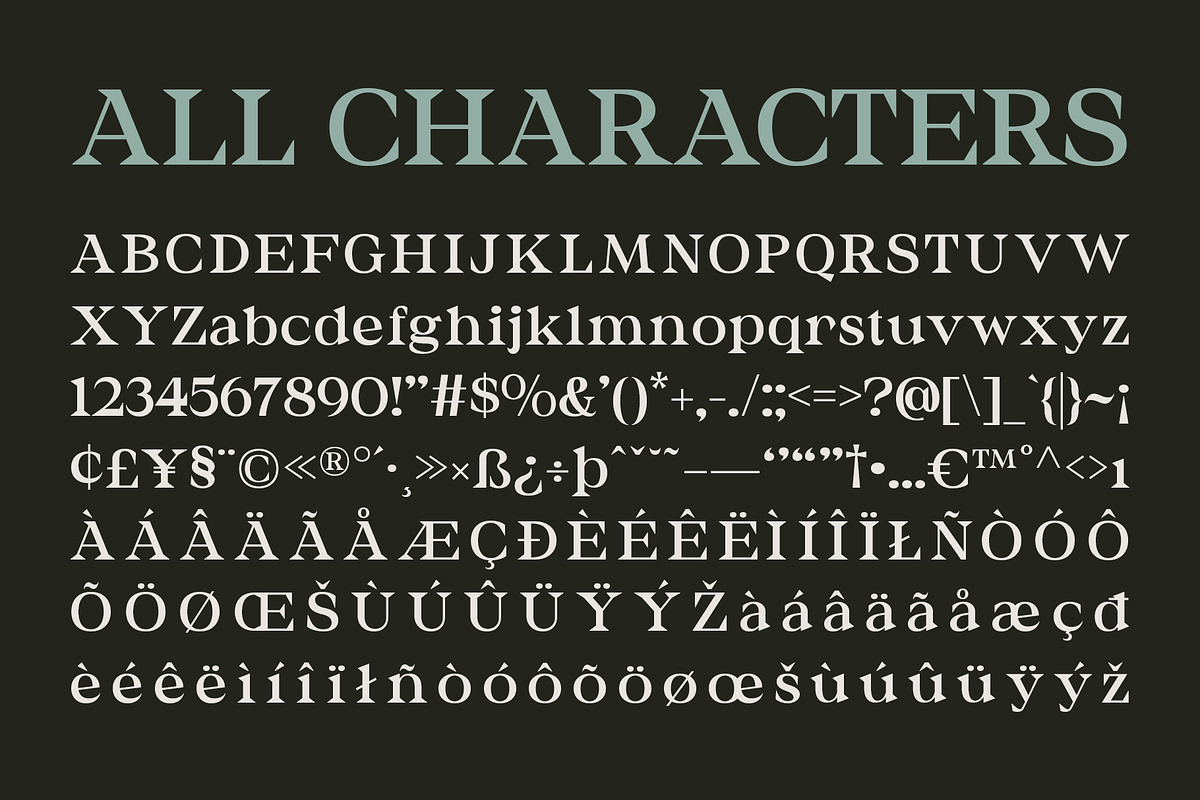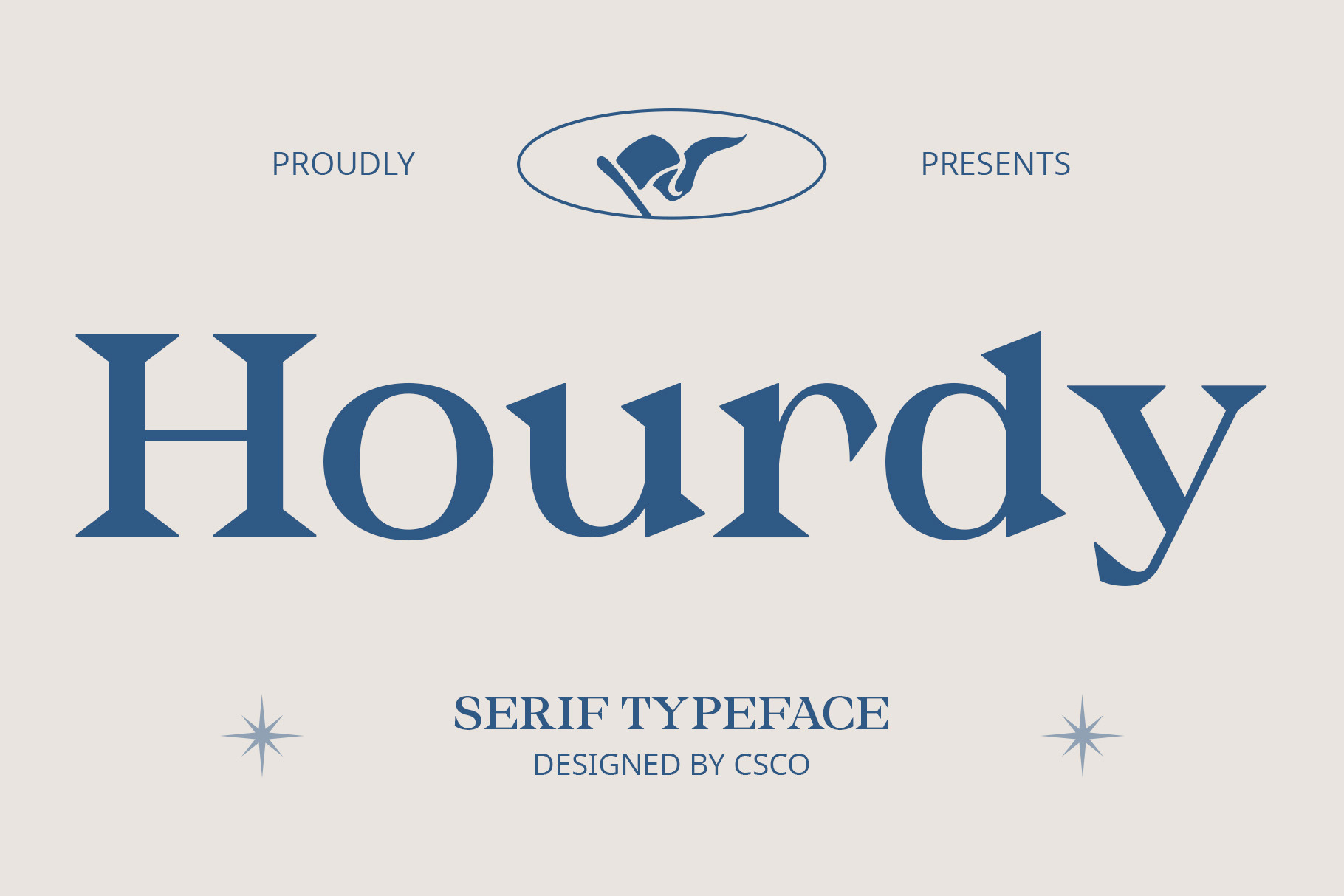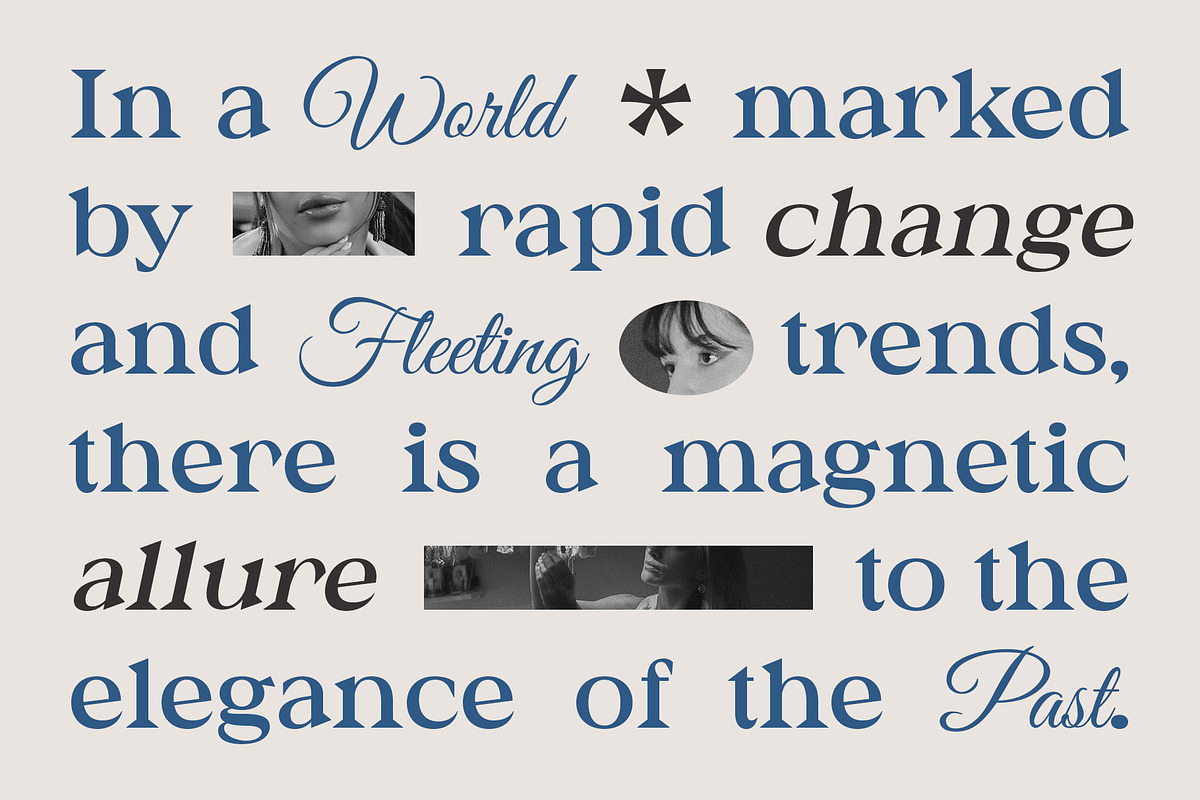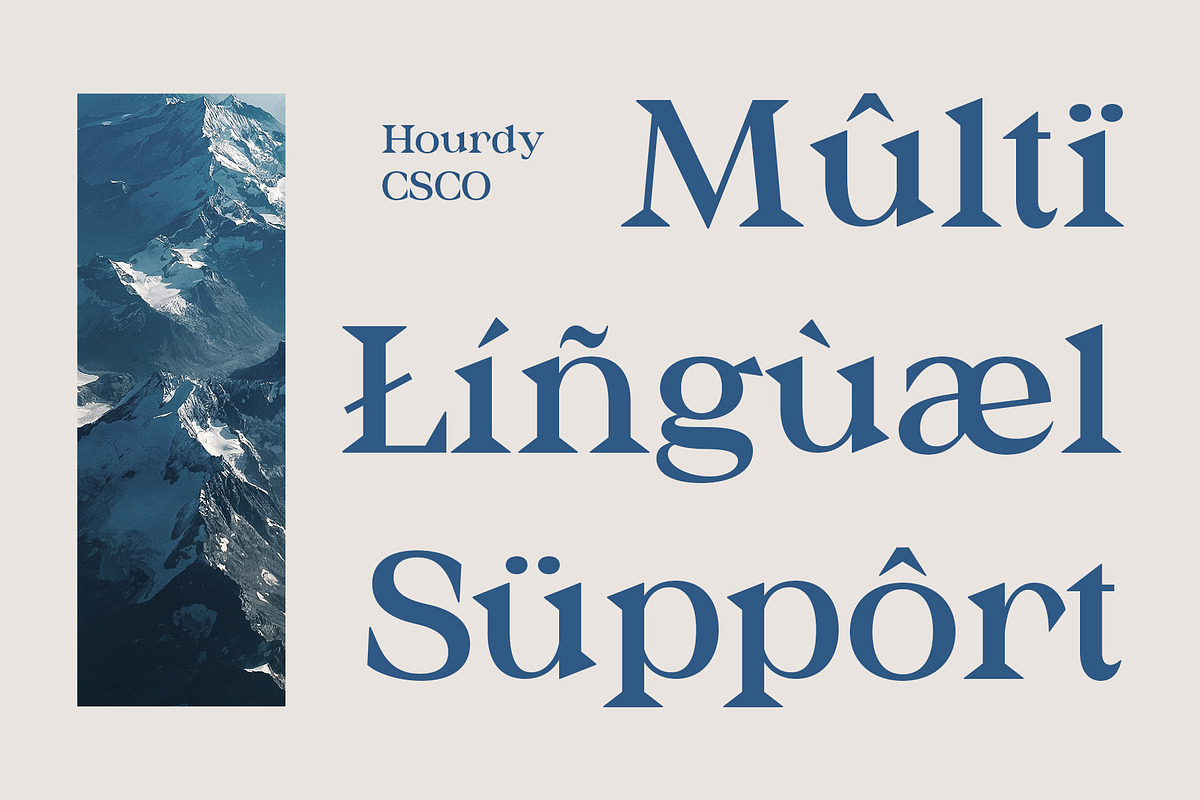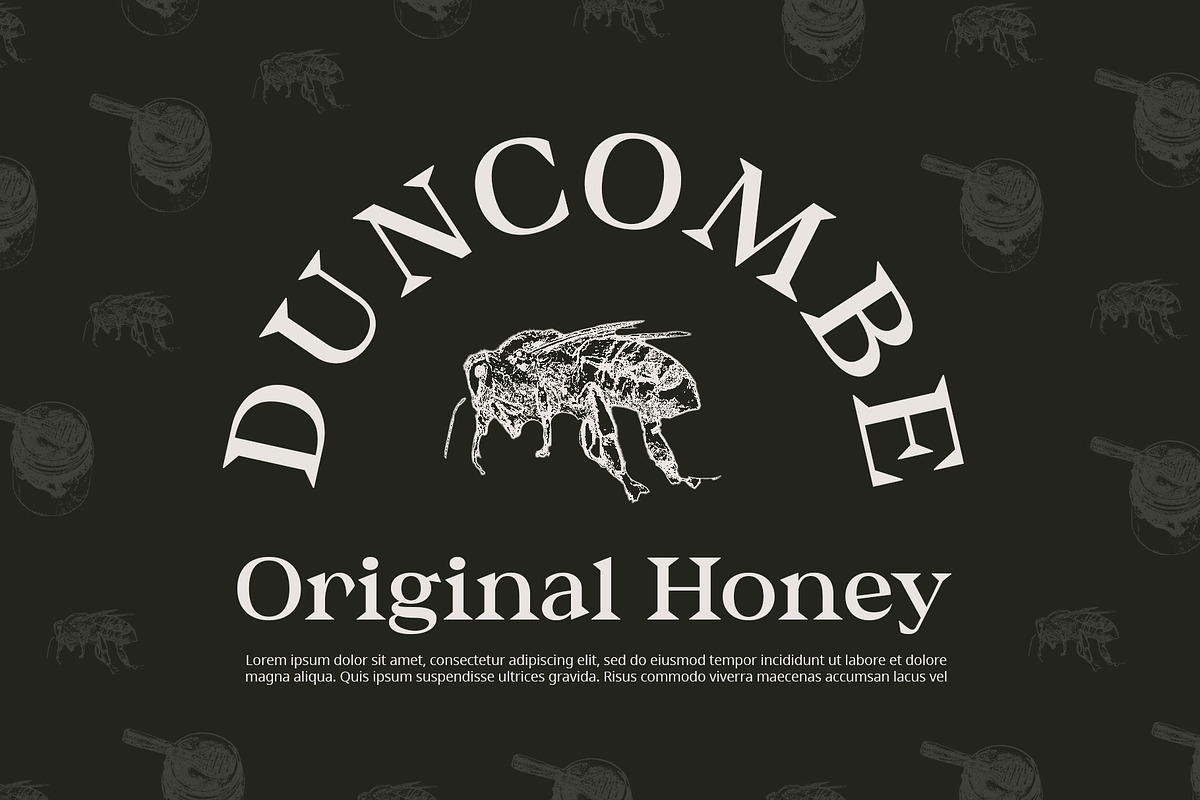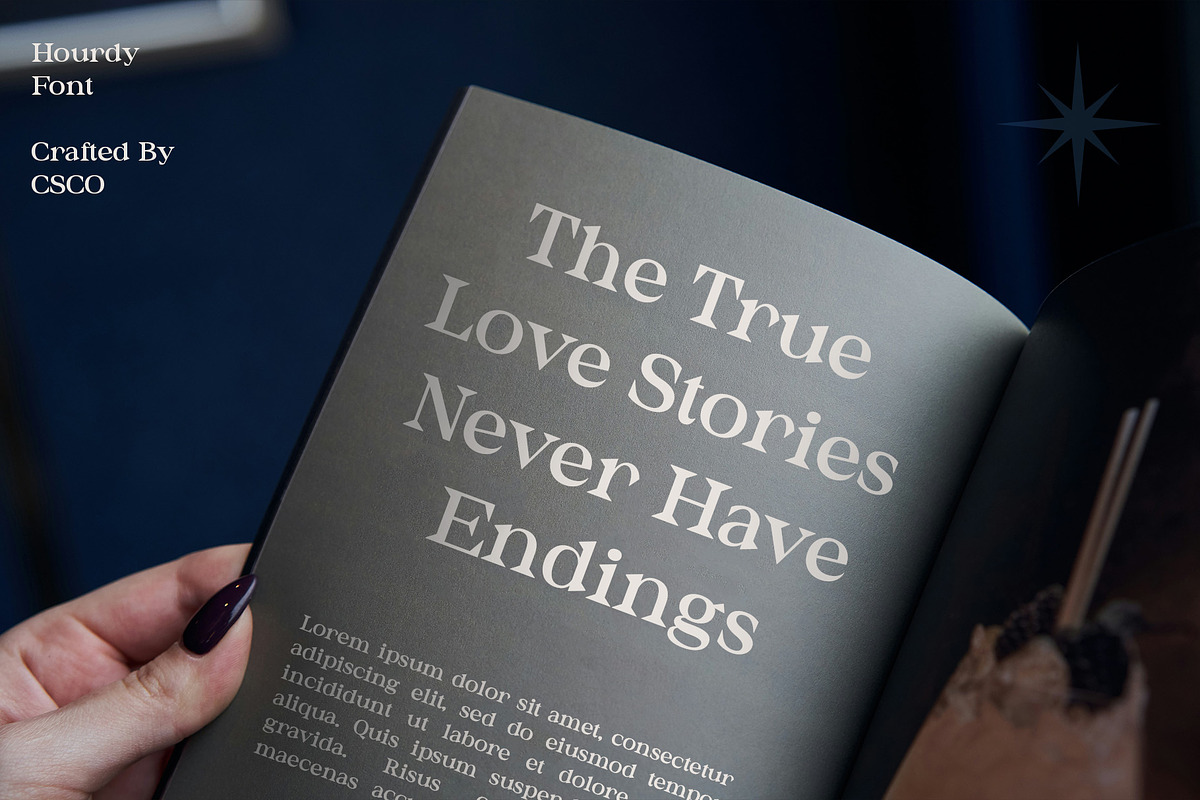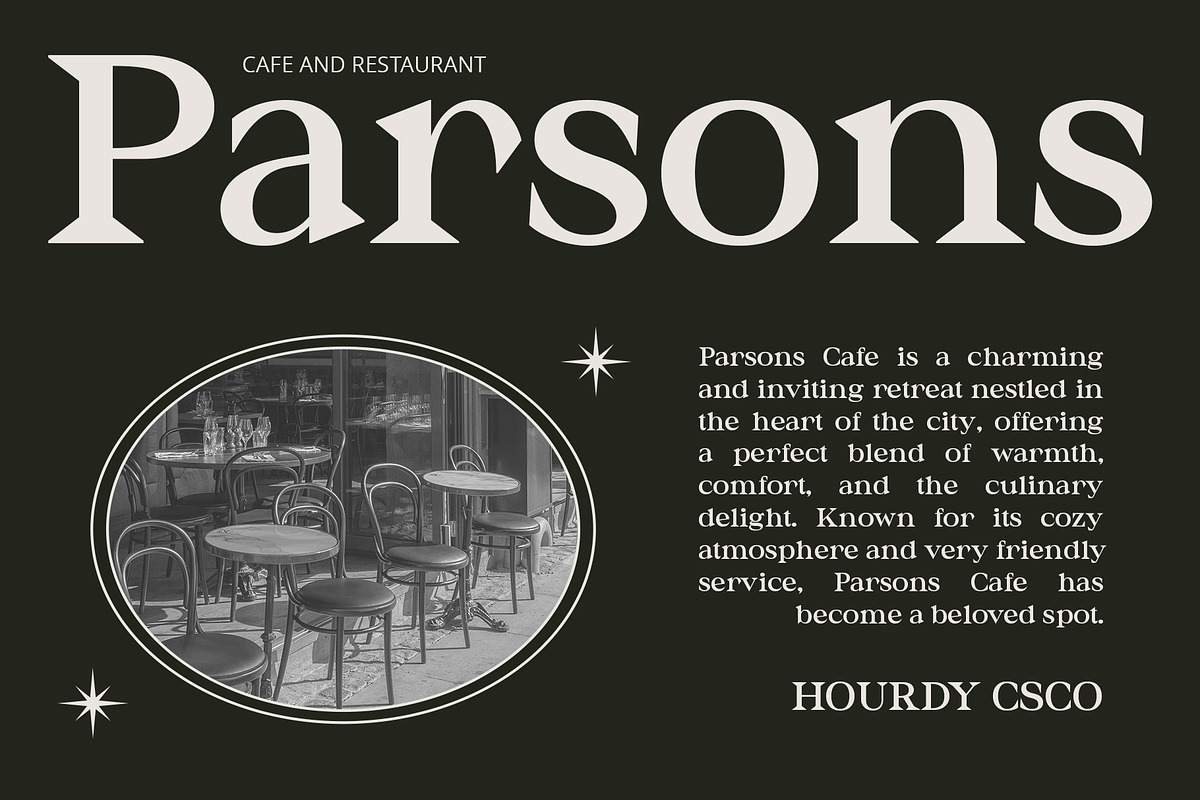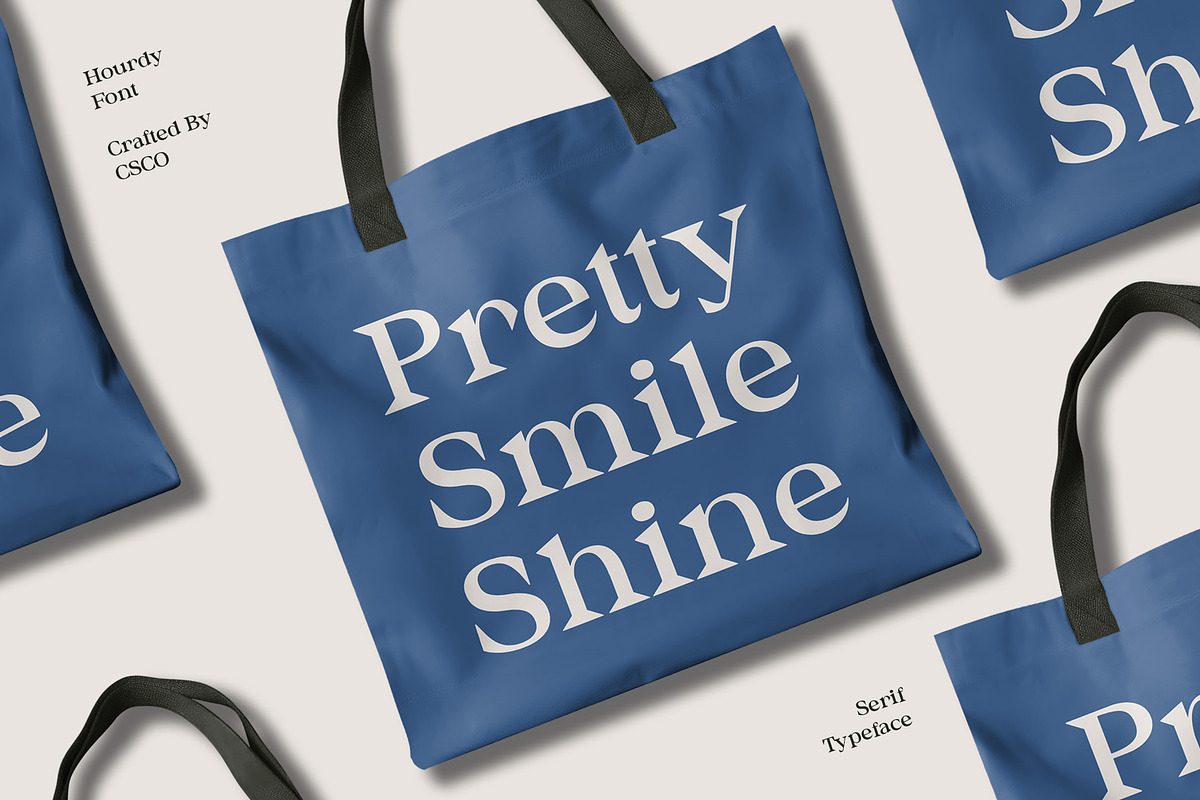
Hourdy – Serif Typeface
Hourdy – Serif Typeface: Where Modernity Meets Professionalism
Sleek and Modern Serif Design
Hourdy – Serif Typeface is a sleek and modern font designed for professional use. Its serif design adds a touch of sophistication, making it perfect for a wide range of applications, from corporate documents to web design.
Versatile and Elegant
With its versatile design, Hourdy Typeface is suitable for a variety of uses, including headlines, body text, and branding. Its modern style adds a contemporary flair to any project, while its serif details ensure a classic and timeless look.
Enhanced Readability
Hourdy Typeface prioritizes readability, ensuring that your message is clear and easy to understand. Whether used in print or digital media, this font maintains legibility even at small sizes.
Perfect for Professional Use
Whether you’re designing a business card, a website, or a presentation, Hourdy Typeface is the perfect choice for projects that require a professional and modern aesthetic. Its timeless design ensures that your work will always look stylish and up-to-date.